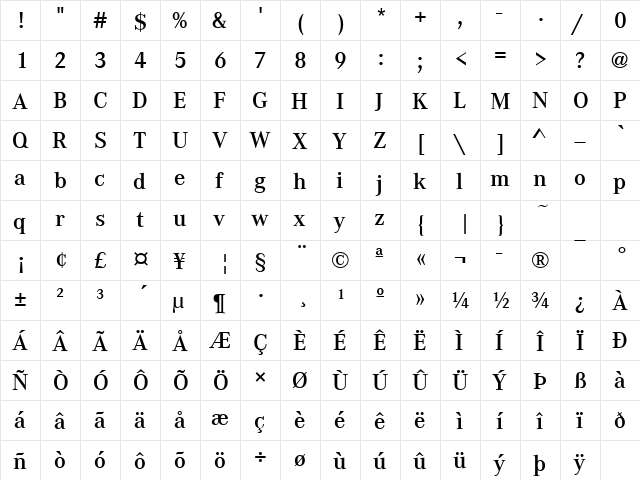
CorpoADem Regular
Design Context for CorpoADem Typeface
CorpoADem offers clean, dependable letterforms without strong stylistic allegiance, making it a practical choice for designers who need flexibility.
Pro Tip: Pair CorpoADem with a font of contrasting weight or personality to build a more expressive typographic hierarchy.